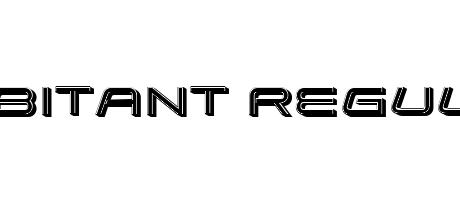
Debitant
Debitant Regular: A bold, futuristic typeface with a distinct, extruded 3D effect. Each letter is sharply defined with parallel lines creating depth and a sense of weight. The style is assertive, ideal for headlines or branding that projects power and modernity. It possesses a clean, geometric quality yet maintains a strong visual impact.